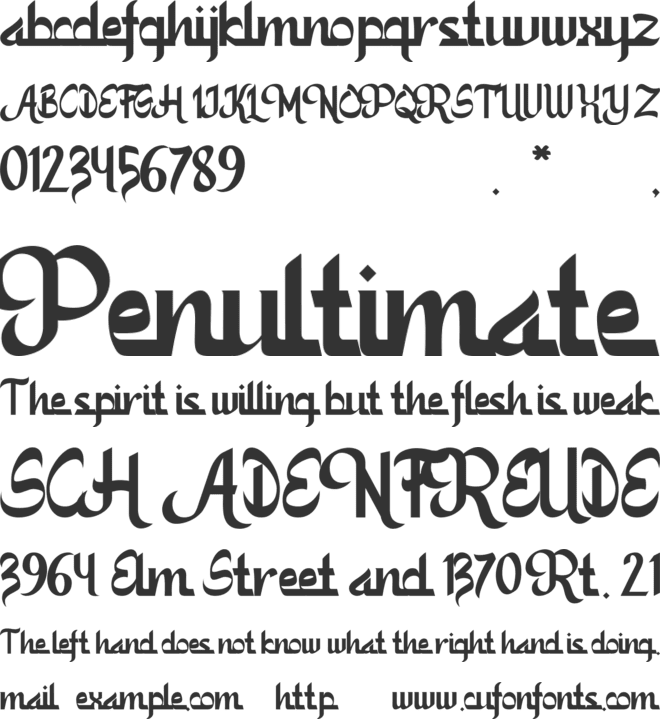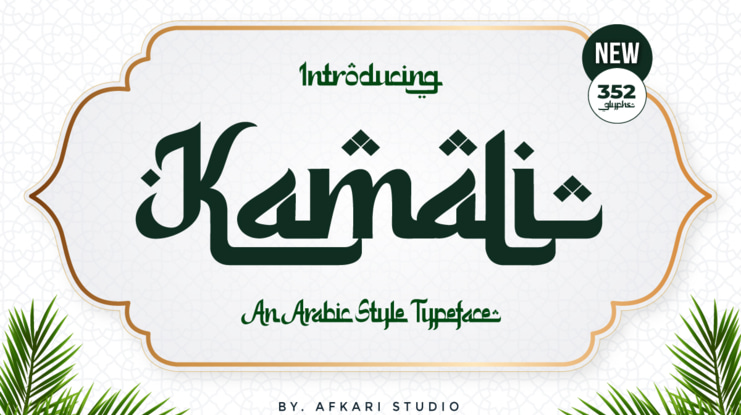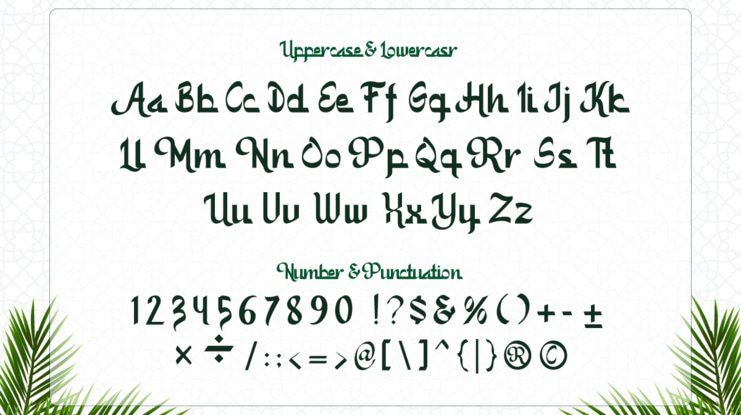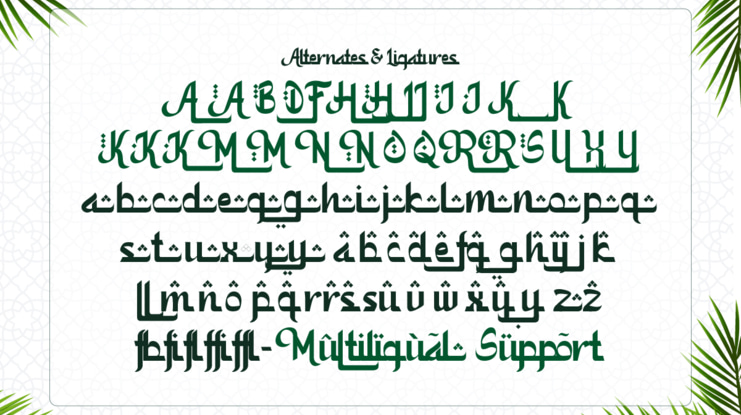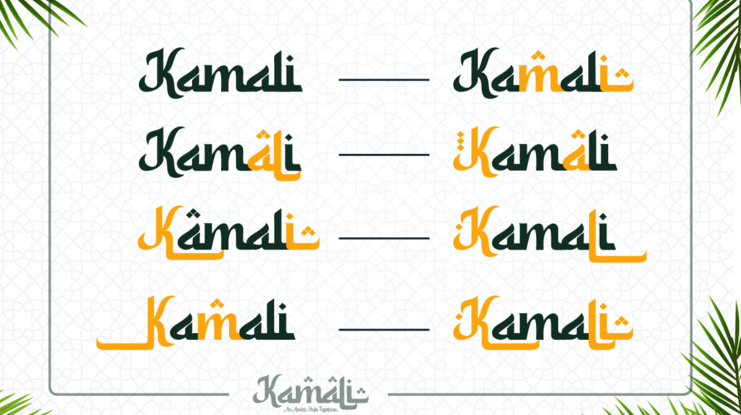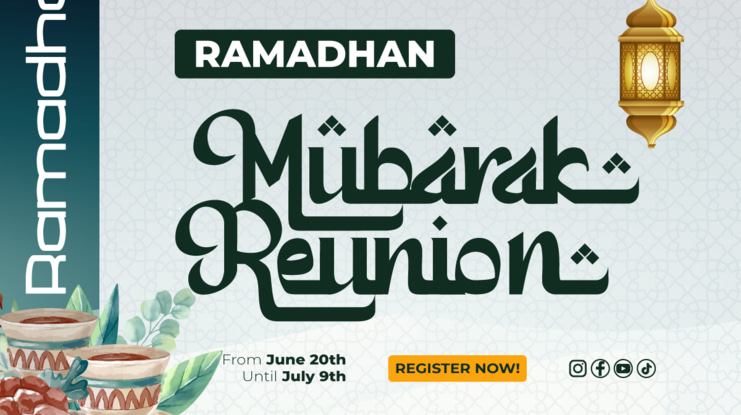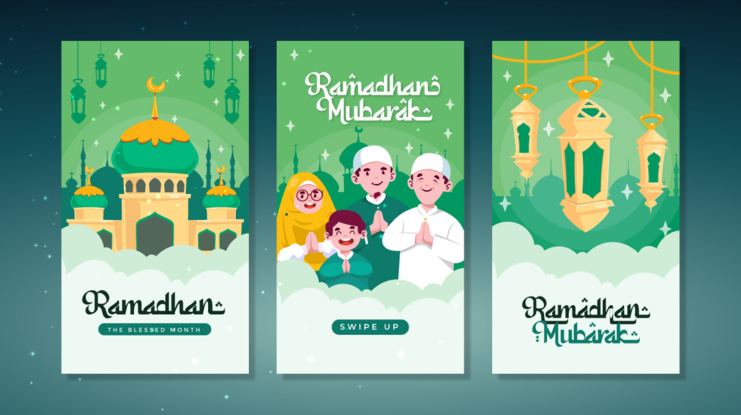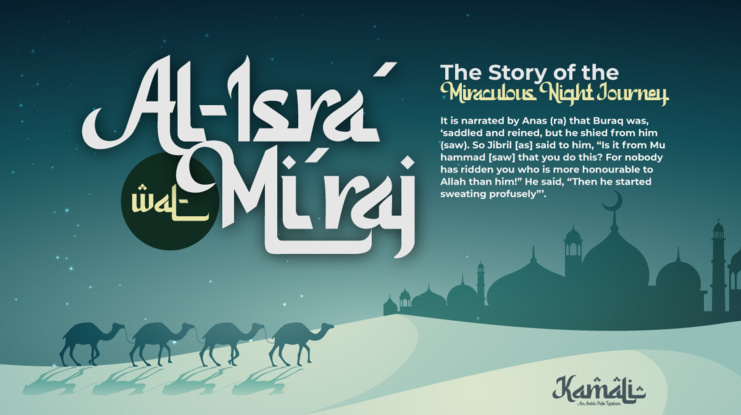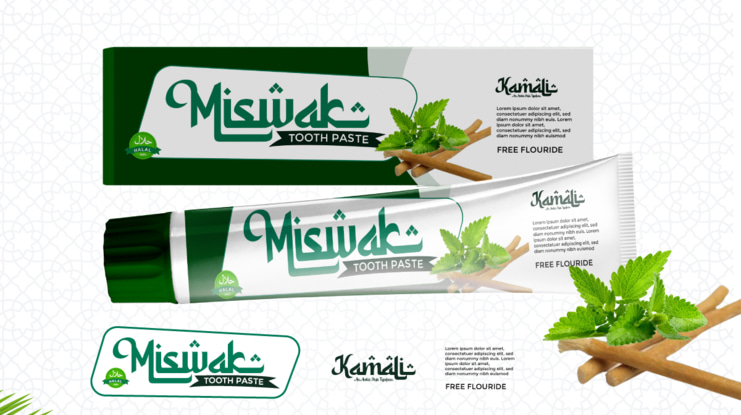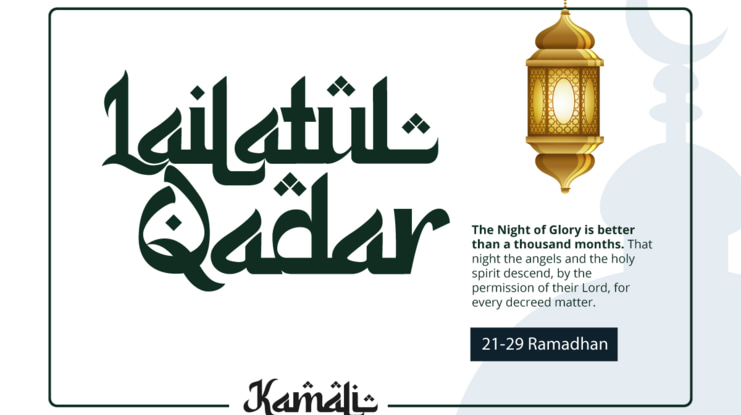
Kamali - An Arabic Style Typeface Font
Introducing Kamali, an enchanting Arabic-style typeface that captures the spirit of Ramadan and Islamic design. Immerse your designs in the rich cultural heritage of Arabic calligraphy with this exceptional font. Kamali is carefully crafted to impart an authentic Arabic essence to every text, making it the perfect choice for graphic design projects inspired by Islamic or Arabic aesthetics.